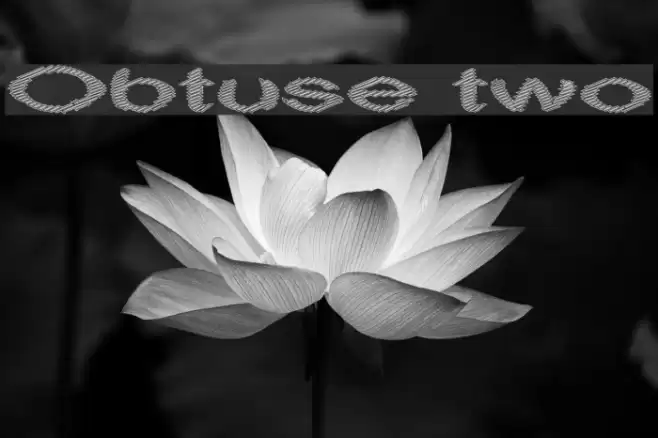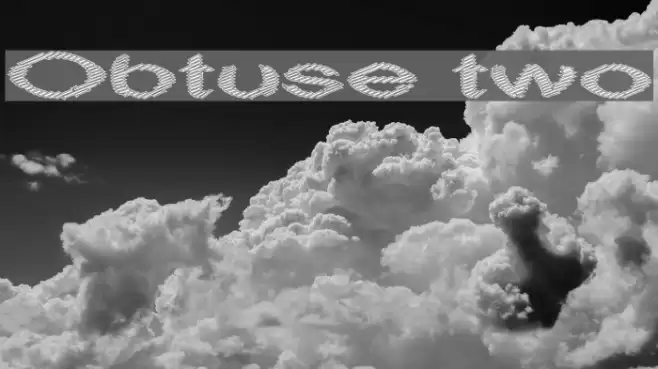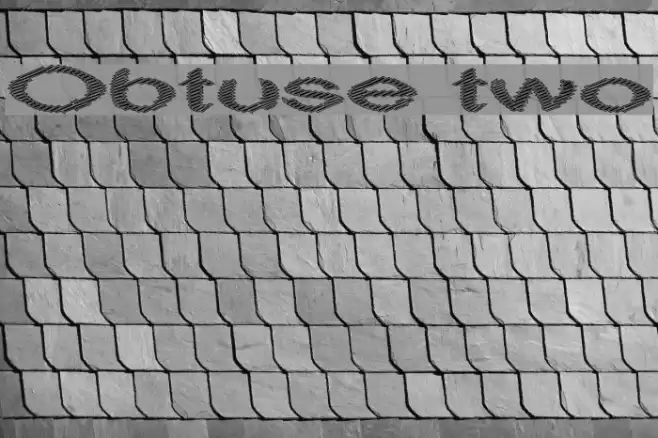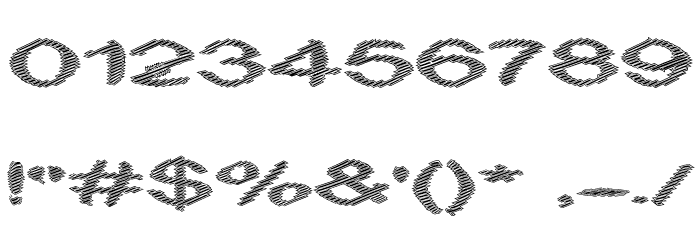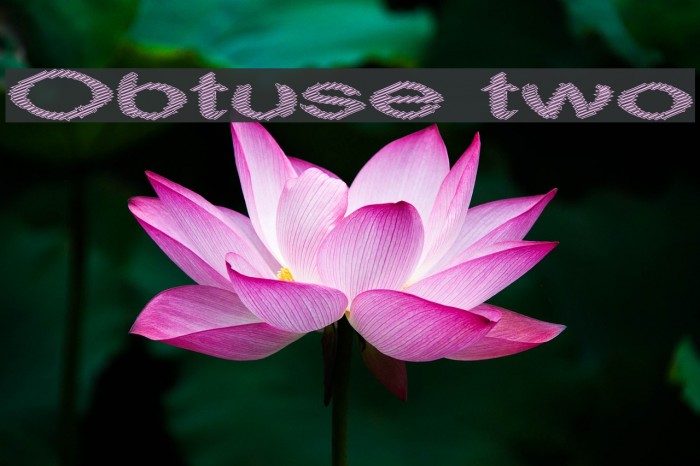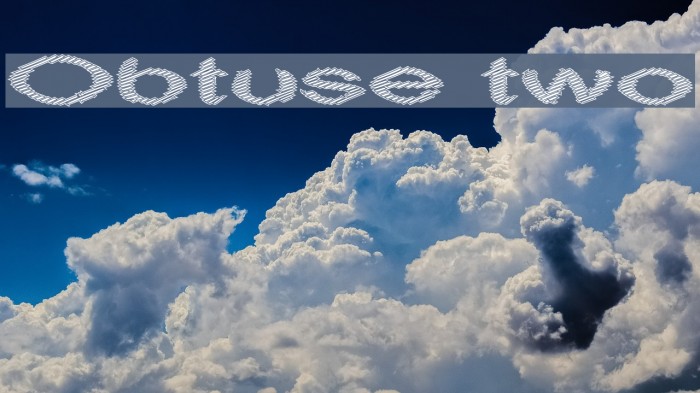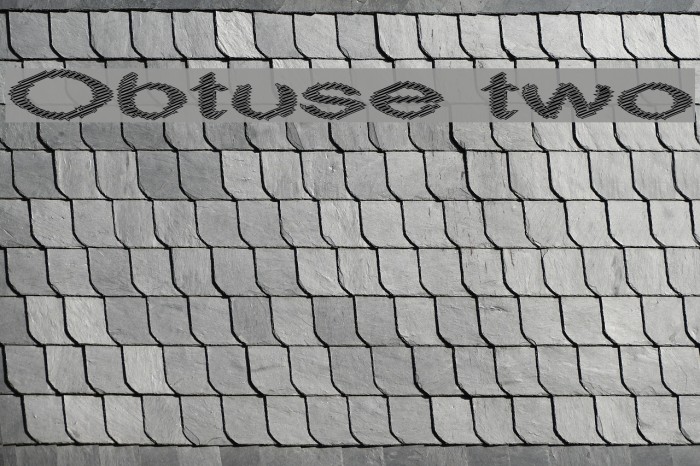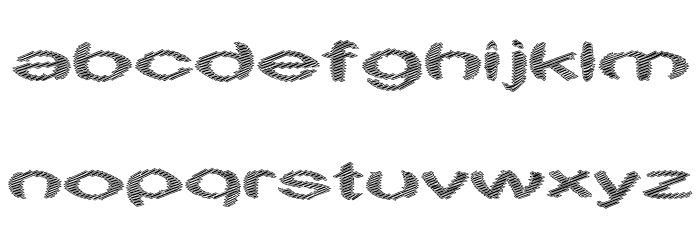
Obtuse two Font
Obtuse two Description
This font features a unique, textured design that mimics a woven or braided pattern. Each character is composed of overlapping lines that create a sense of depth and complexity. The style is highly decorative, making it stand out with its intricate detailing. The letters are bold and have a consistent thickness throughout, providing a uniform appearance. The spacing between characters is relatively tight, which enhances the cohesive look of the text. This font is ideal for creative projects where a distinctive and artistic touch is desired.
A decorative font with a woven, textured design and bold characters from Uncategorized fonts.
- Proposed Projects: Ideal for branding, posters, artistic projects, and any design requiring a unique and eye-catching font.
- Character Spacing: Tight